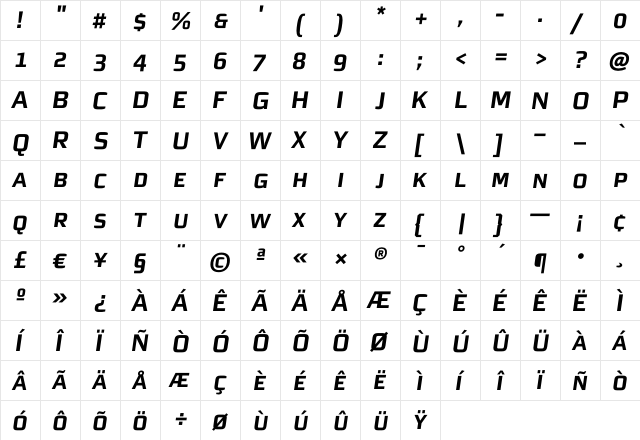
MorganSnExpert Bold Oblique Font Preview
Design Context for MorganSnExpert Typeface
MorganSnExpert takes a measured approach to typography — its balanced proportions and neutral character make it a reliable workhorse for both digital and print work. Its italic angle brings a sense of urgency and motion to the letterforms. Its bold stroke weight gives it real presence on the page.
Pro Tip: Try MorganSnExpert for annotation and caption copy alongside an upright companion — the contrast in angle creates a dynamic but ordered typographic system.